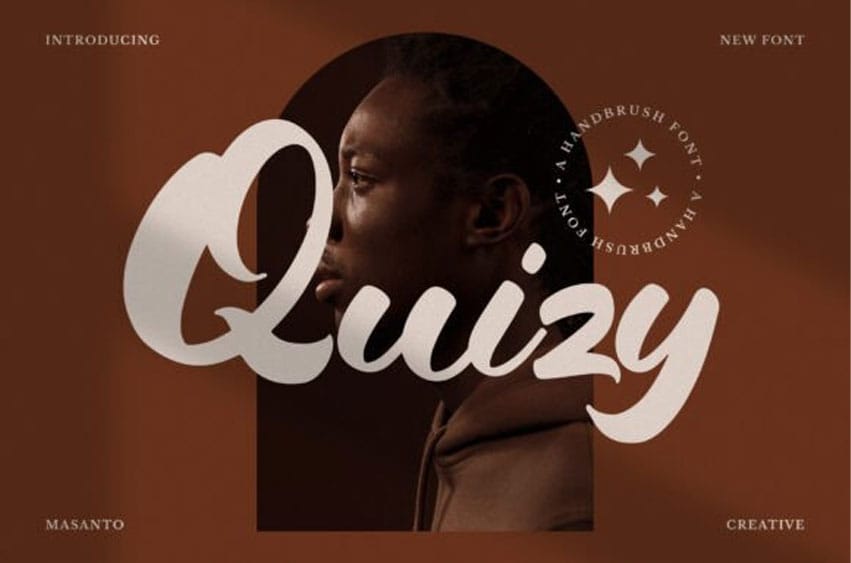
Quizy Font is an exquisite handwritten font, masterfully designed to become a true favorite. It maintains its classy calligraphic influences while feeling contemporary and fresh.